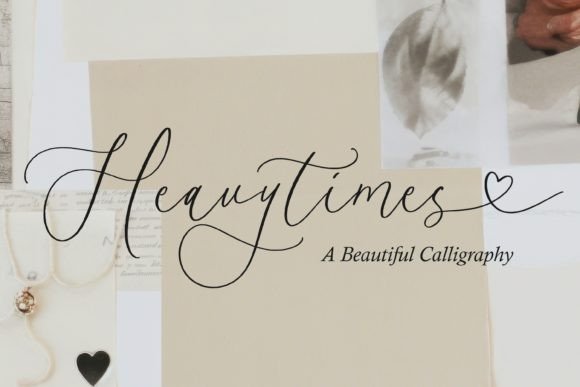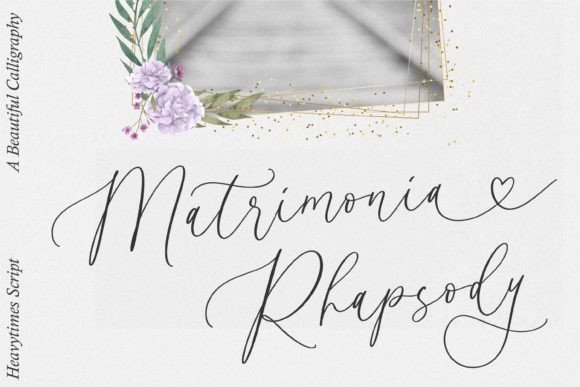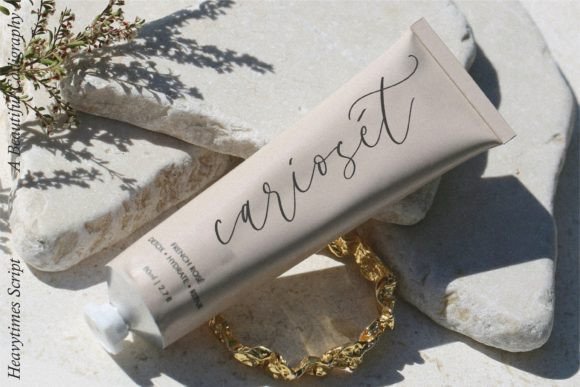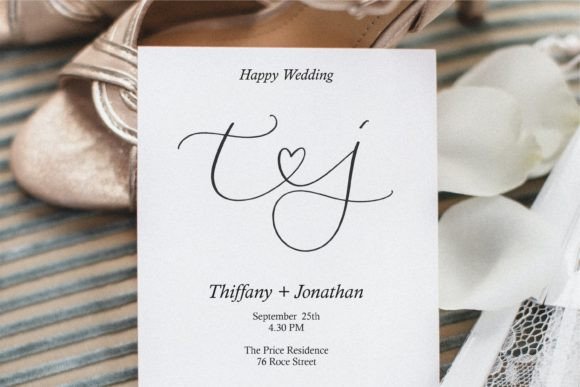
Heavytimes Font: Elegant Calligraphy for Wedding Invitations & Branding
About the Heavytimes Font
The Heavytimes Font is here to transform your projects with its distinctive character and style. Heavytimes is a heart & tail beautiful calligraphy font, featuring a stunning handmade style with elegant tails and swashes. The flowing tails and swashes add an extra layer of sophistication and elegance, creating a beautiful and harmonious composition. Whether you’re designing wedding invitations, branding, and other romantic project, this font is perfect for you.
Heavytimes excels in applications requiring a touch of refined elegance, such as wedding stationery, luxury branding, and short-form editorial design. Its graceful swashes make it ideal for headlines, logos, and short text blocks on packaging or posters. However, its intricate details make it less suitable for body text or UI elements where readability is paramount; long paragraphs would be difficult to decipher.
Pairing Heavytimes effectively requires considering its inherent elegance. A clean sans-serif like Montserrat or a geometric sans-serif like Futura would provide a strong contrast and enhance readability in supporting text. For a warmer feel, a classic serif like Garamond could complement its sophisticated curves. Avoid pairing it with other highly decorative fonts to prevent visual clutter.
The overall personality of Heavytimes is sophisticated and romantic, lending itself to brands focused on luxury, beauty, or the arts. Its elegant flourishes communicate a sense of quality and timeless style, suitable for projects aiming for a classic yet refined aesthetic.